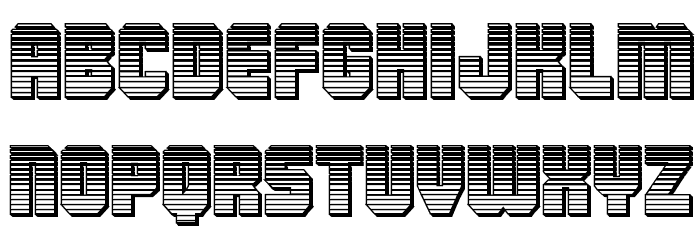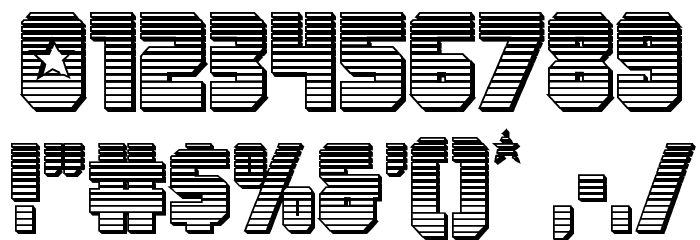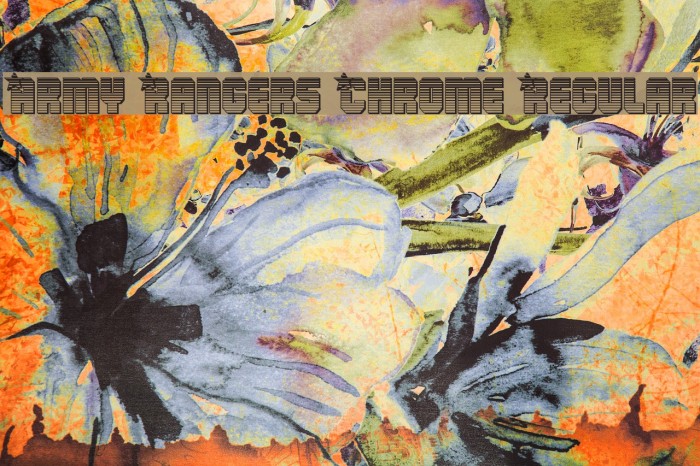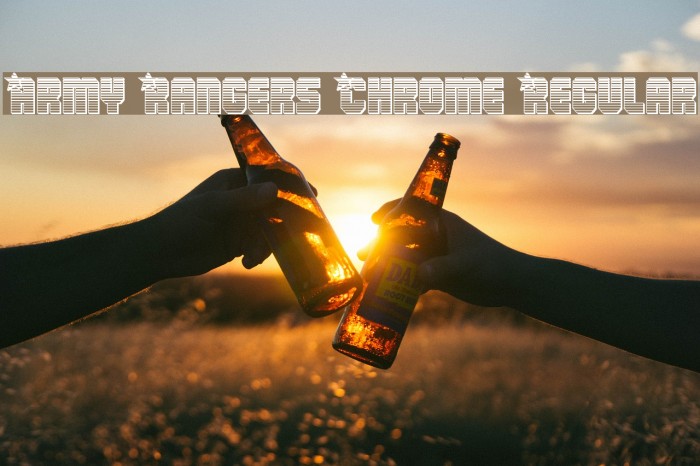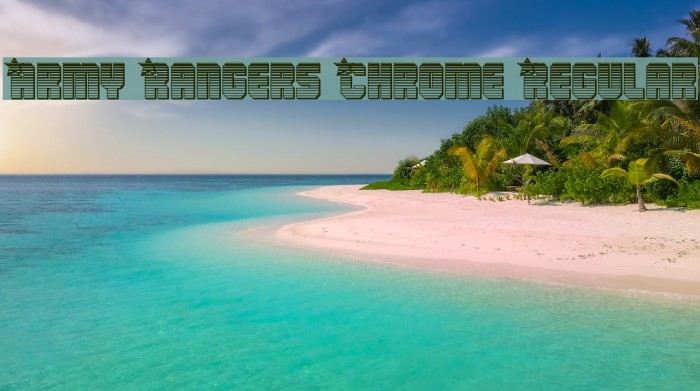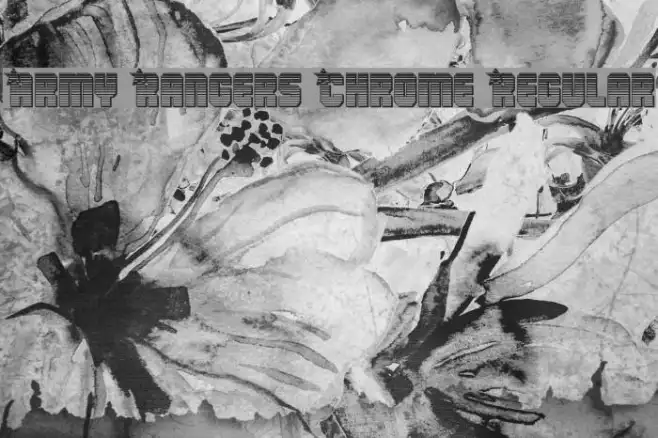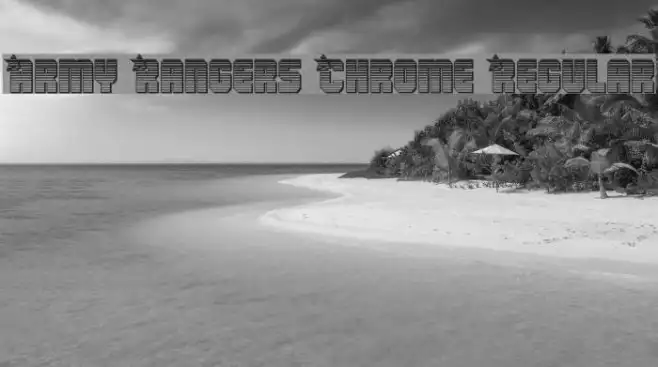
Army Rangers Chrome Regular Font
This font features a bold, three-dimensional design with a chrome-like appearance. The characters are constructed with horizontal lines that create a layered effect, giving each letter a sense of depth and solidity. The style is reminiscent of military or industrial themes, with a strong, commanding presence. The uppercase letters are particularly striking, with angular edges and a robust structure. The numbers and special characters maintain the same bold and structured aesthetic, ensuring consistency across all elements.
A bold, three-dimensional font with a chrome-like, industrial appearance.
- Proposed Projects: Ideal for projects requiring a strong, industrial look such as military-themed posters, video game titles, or automotive branding.
- Overall Style: Modern, Industrial